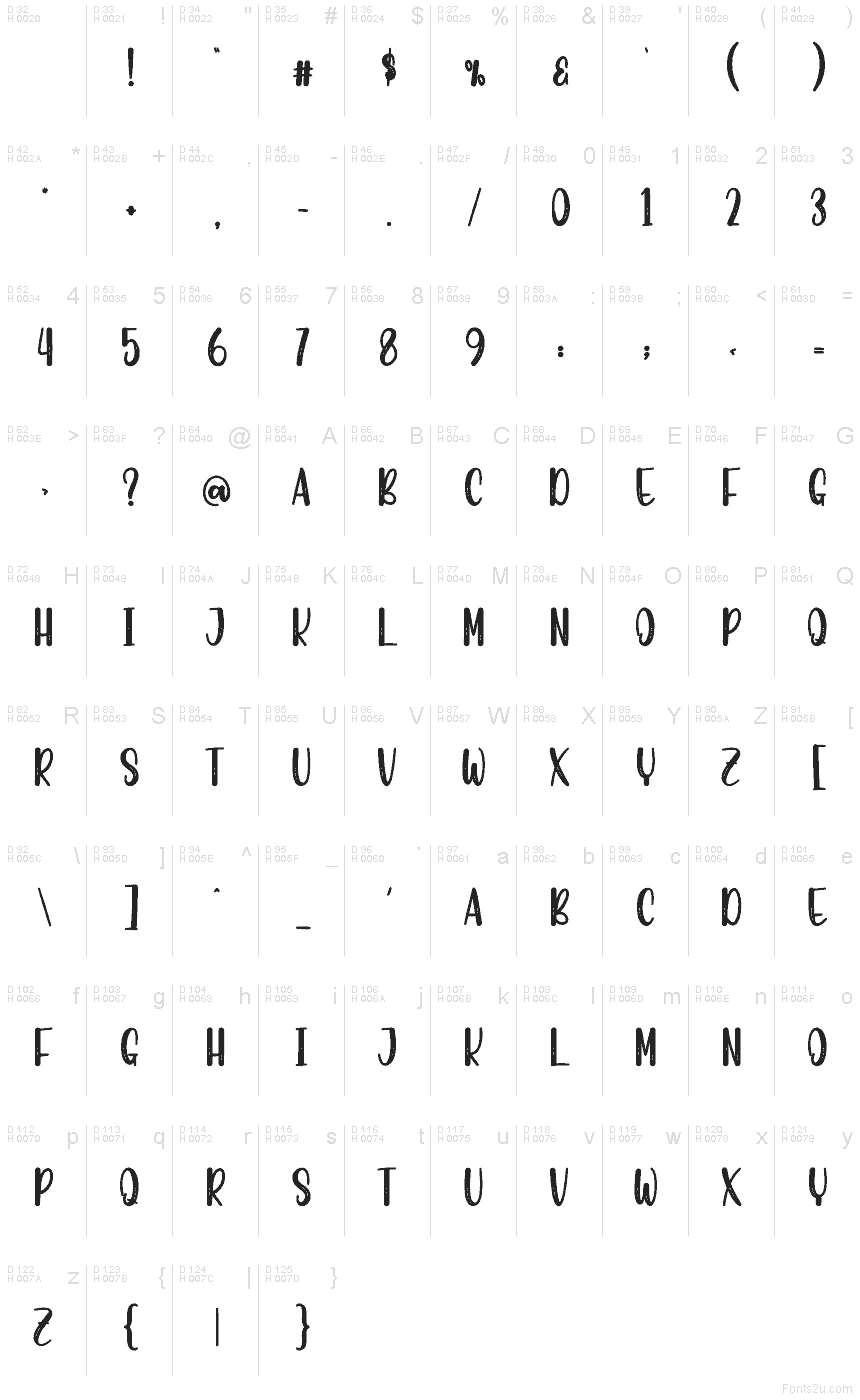
Snoweb
Snoweb font by Scratchones is a grunge-inspired display font with an artistic flair and textured appearance. This condensed font combines a modern touch with a handcrafted feel, producing a truly exquisite design experience to your different projects.
Use Snoweb in contemporary applications in streetwear, casual brands, marketing items, advertisements, apparel designs, packaging boxes and tags, business cards or invitation cards.